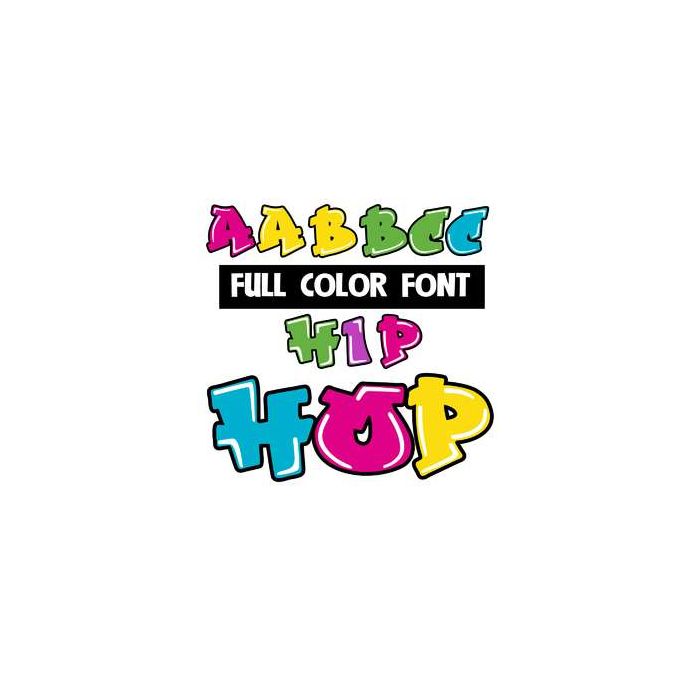
This bright and colorful font looks like graffiti. Mix up both cases as you type for creative results. This font works best for titles, displays, posters and more. Please note color fonts will show as black in non compatible programs. This font type is compatible with Silhouette Studio.